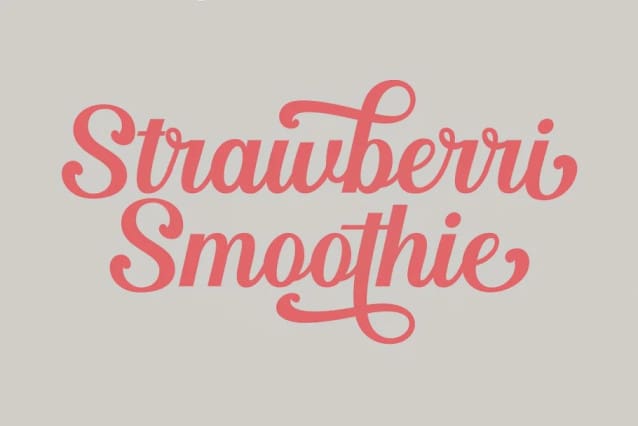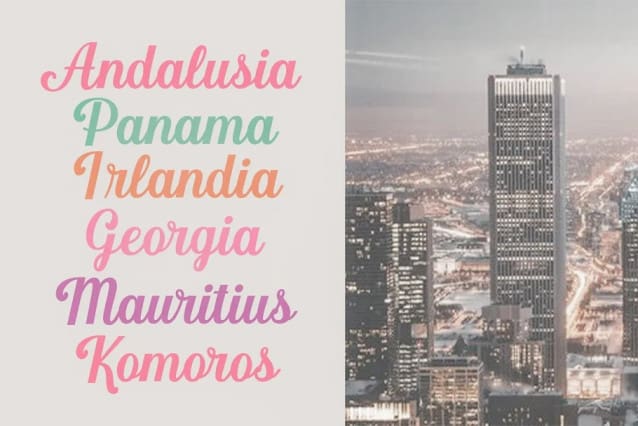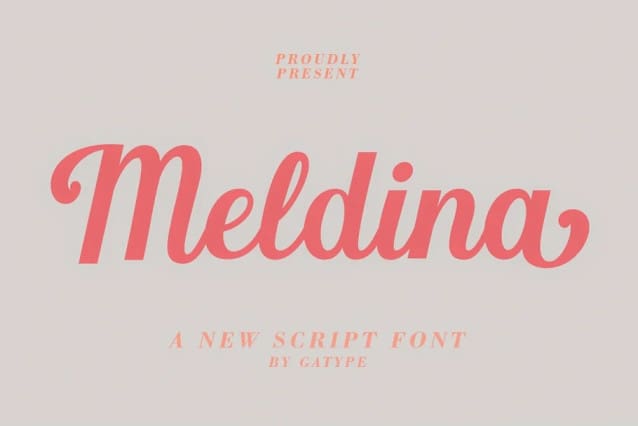
Meldina Font
Meldina Font is a modern calligraphy font. This font is casual and pretty with a stroke. Can be used for various purposes. such as logos, product packaging, wedding invitations, branding, headlines, signage, labels, signatures, book covers, posters, quotes and others.